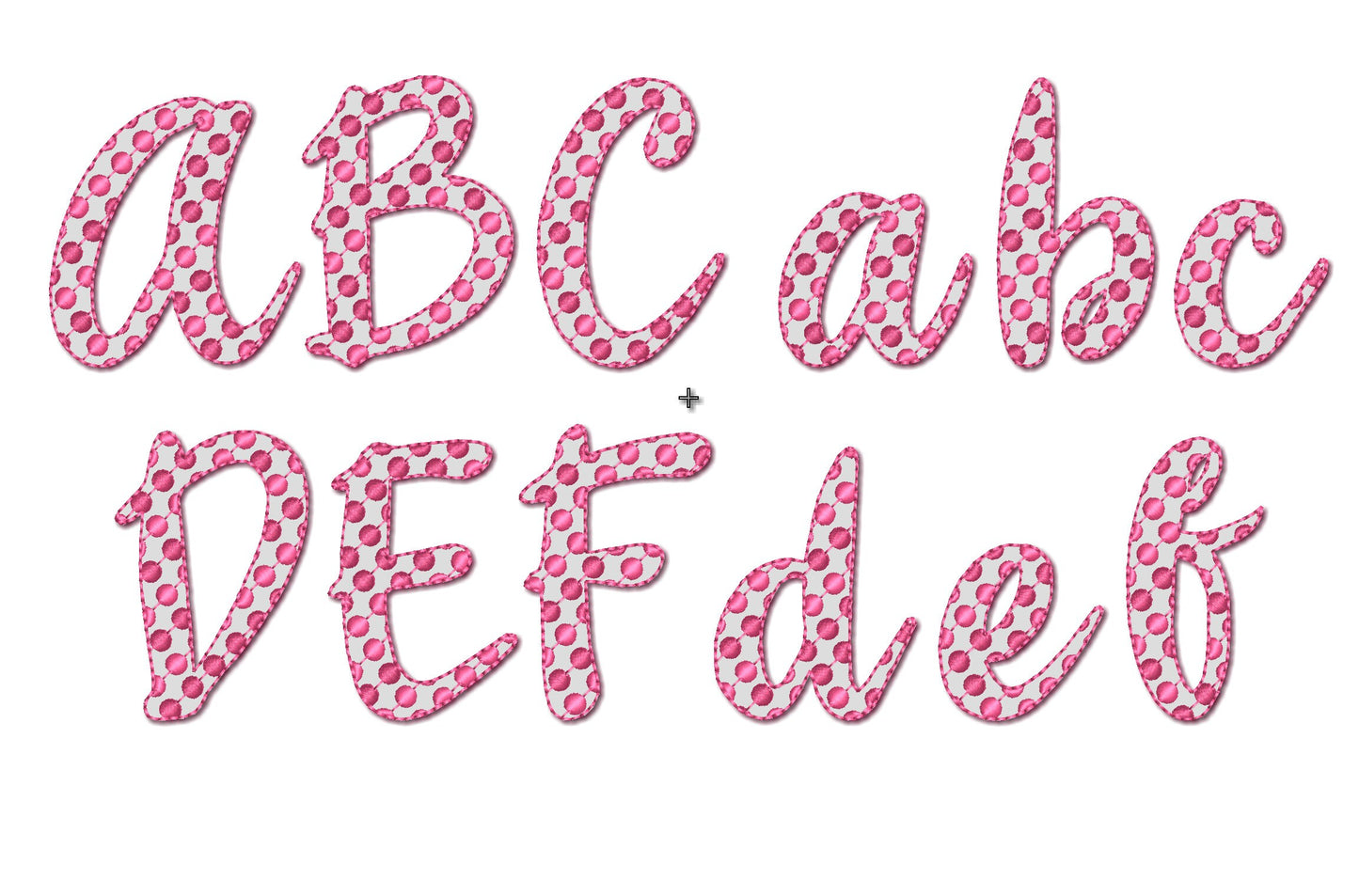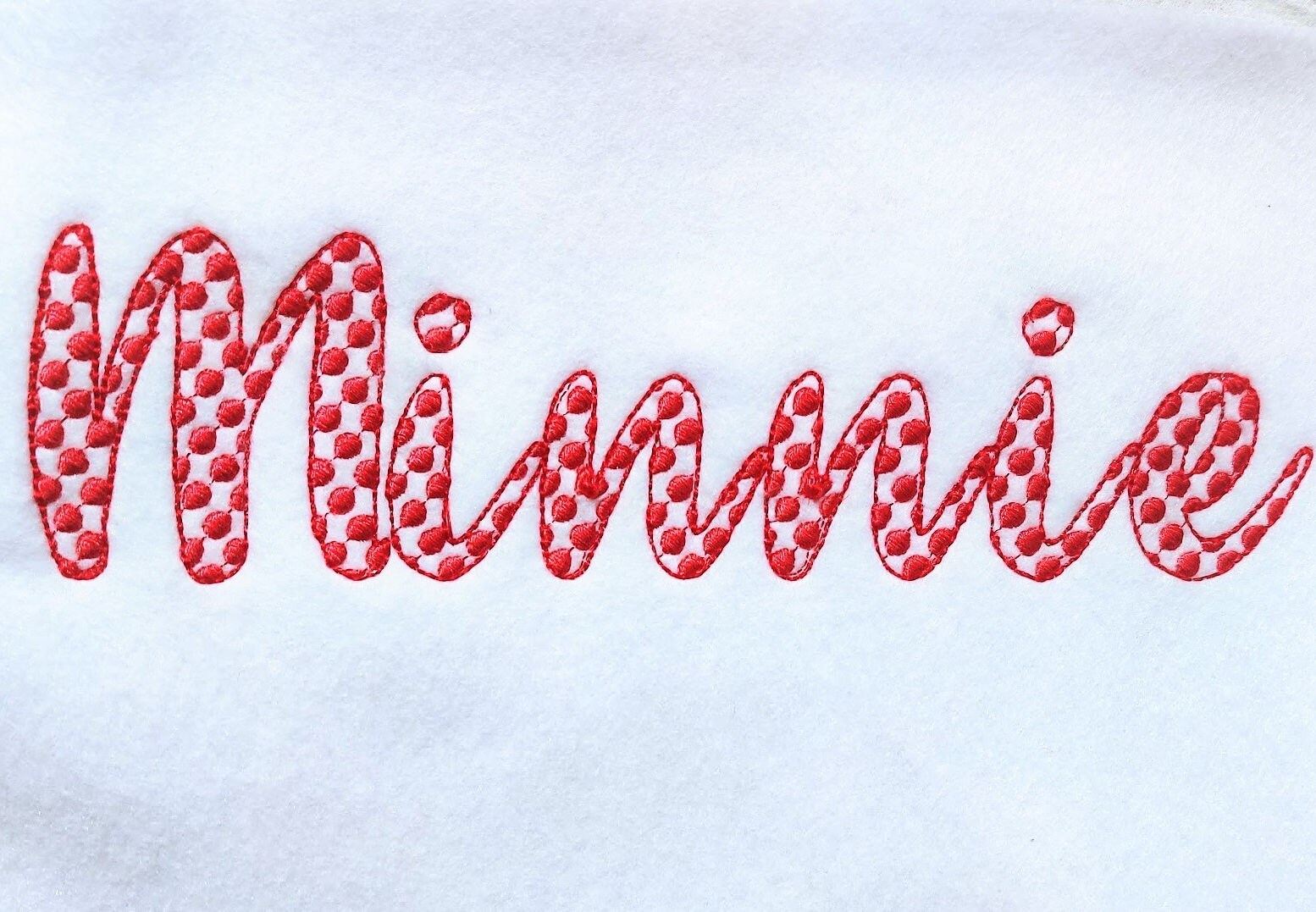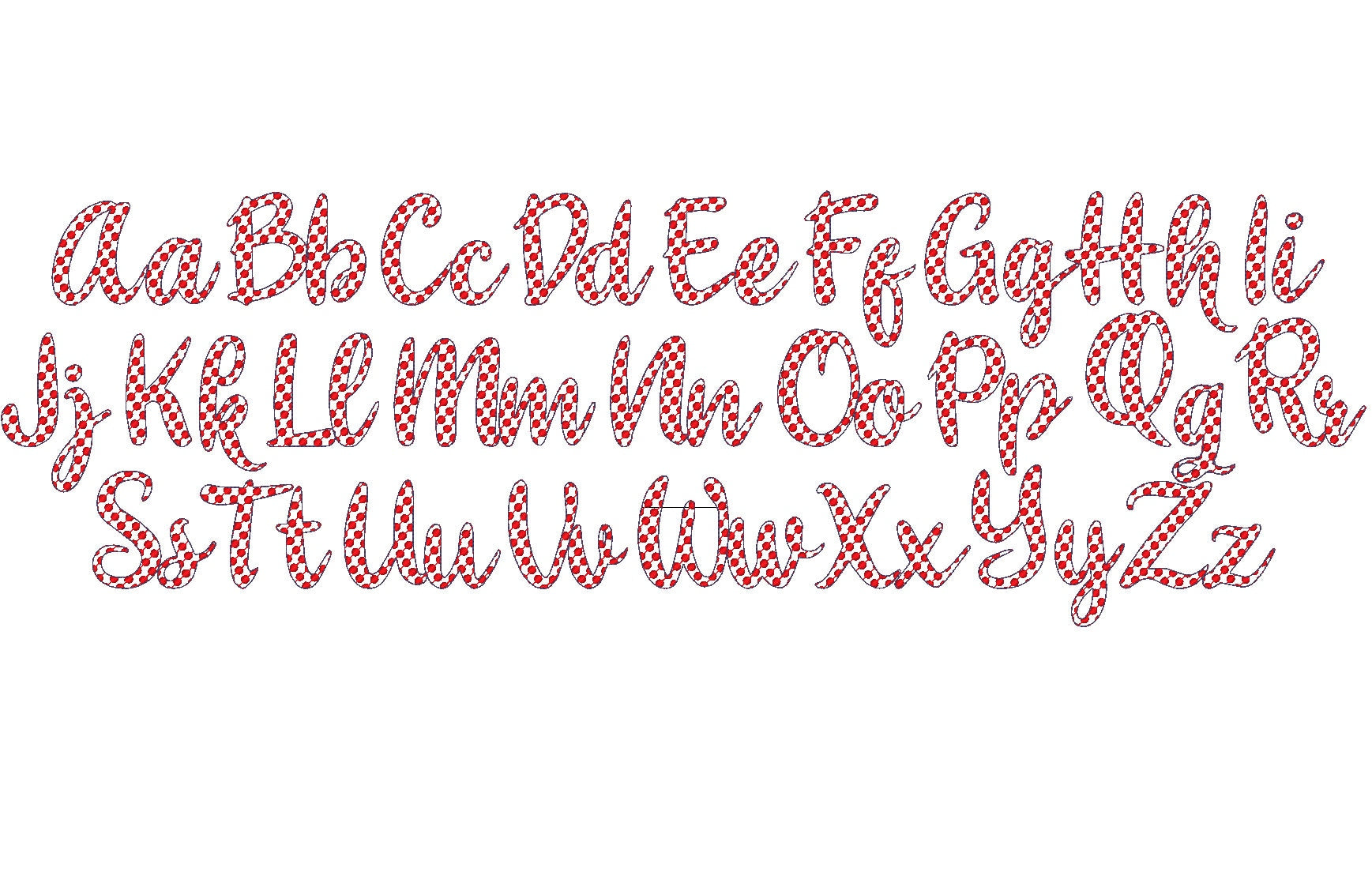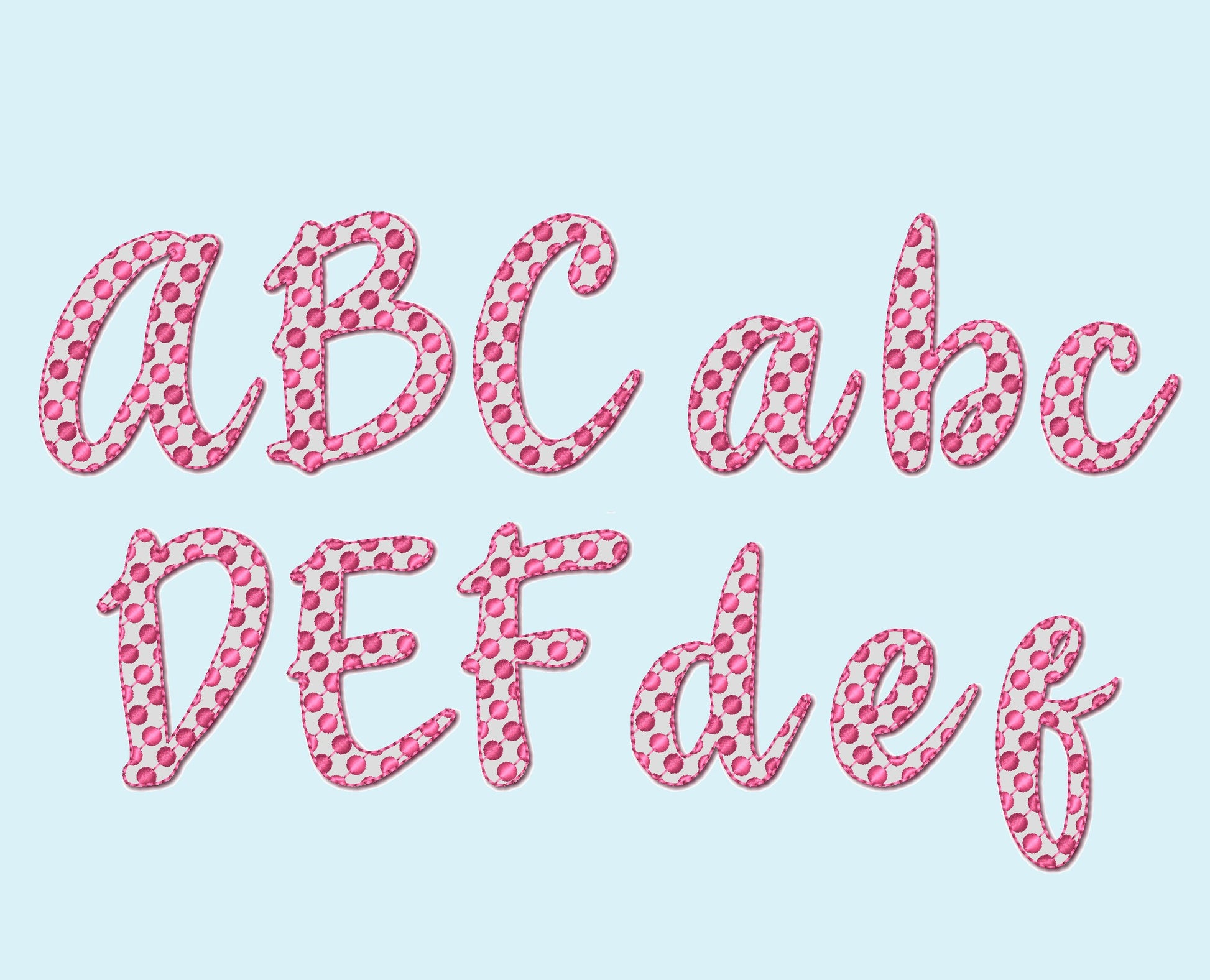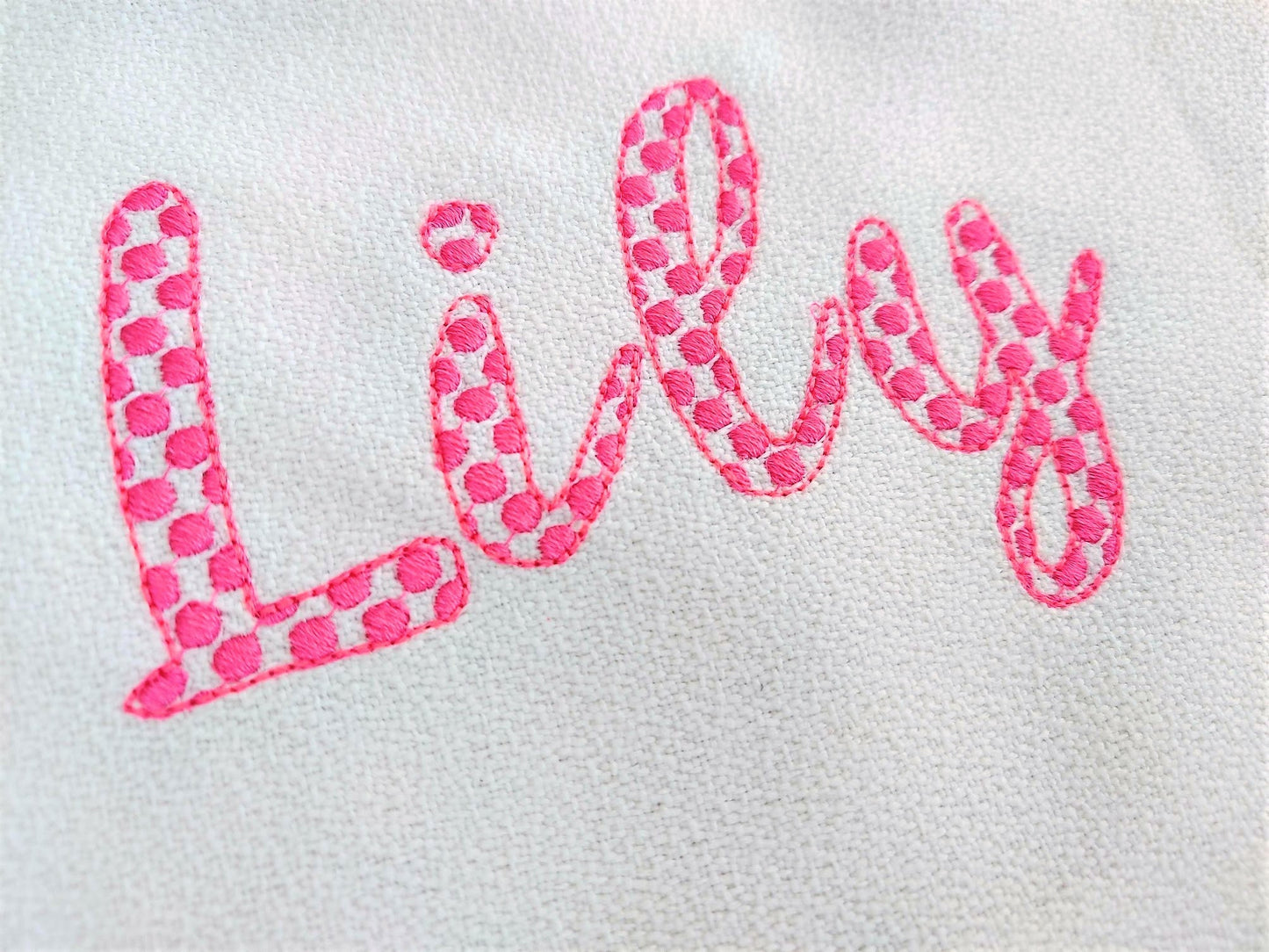
Polka Dot Minnie Mouse Font
Or click to open the linkA cursive kids' alphabet with polka dots, in light sketch stitch. Cute for names on girls' shirts, bags, pillows and party outfits.
Uppercase and lowercase cursive letters with polka dots stitched inside, in six sizes: 1.6, 2, 2.4, 3, 3.3 and 3.7 inches. Quick, light stitching lets the fabric show through.
- Polka dot cursive letters, uppercase and lowercase